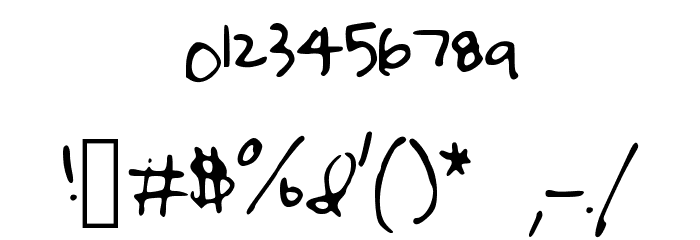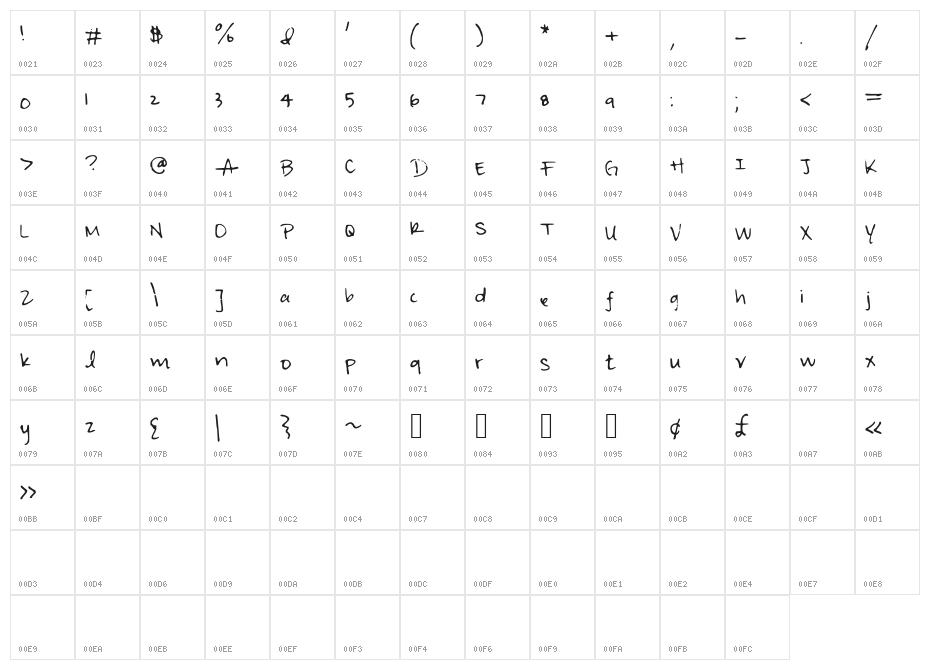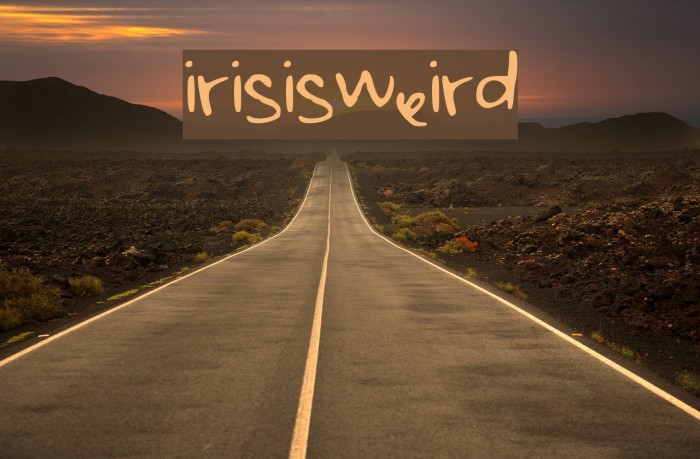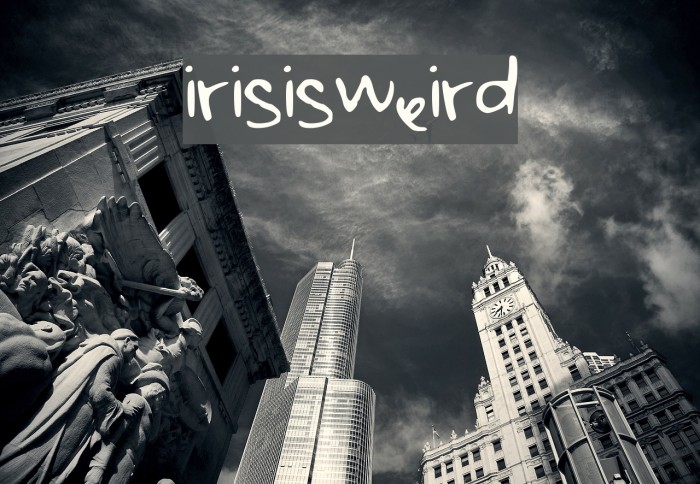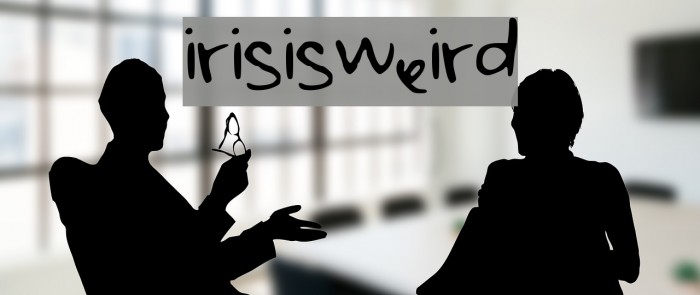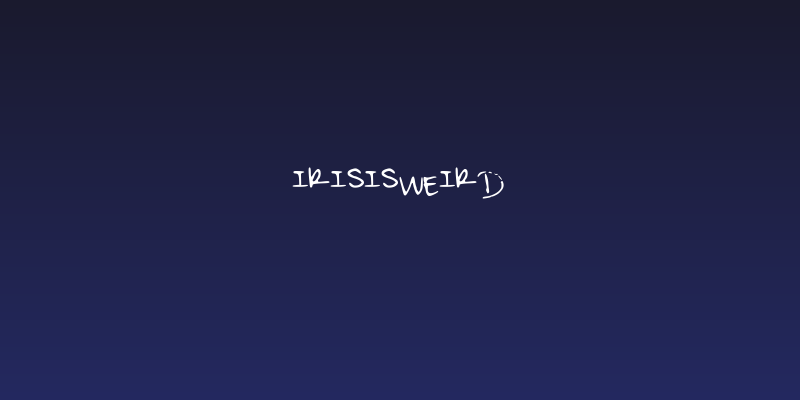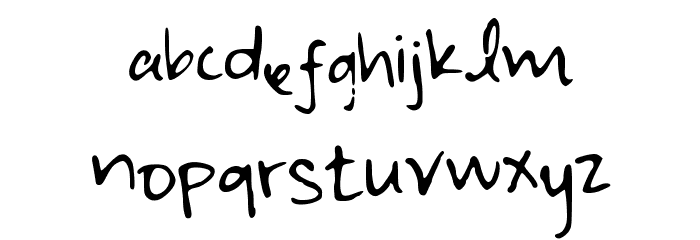
irisisweird Font
irisisweird Description
This font exhibits a playful and informal handwritten style, characterized by its uneven strokes and casual appearance. The letters have a dynamic flow, with varying thickness that adds a sense of movement and energy. The uppercase letters are bold and slightly irregular, while the lowercase letters maintain a consistent, yet quirky style. Numbers and special characters follow the same informal theme, making this font suitable for creative and artistic projects. The overall design is approachable and friendly, perfect for conveying a personal touch.
IRISISWEIRD UPPERCASE
IRISISWEIRD LOWERCASE
IRISISWEIRD OTHER CHARS